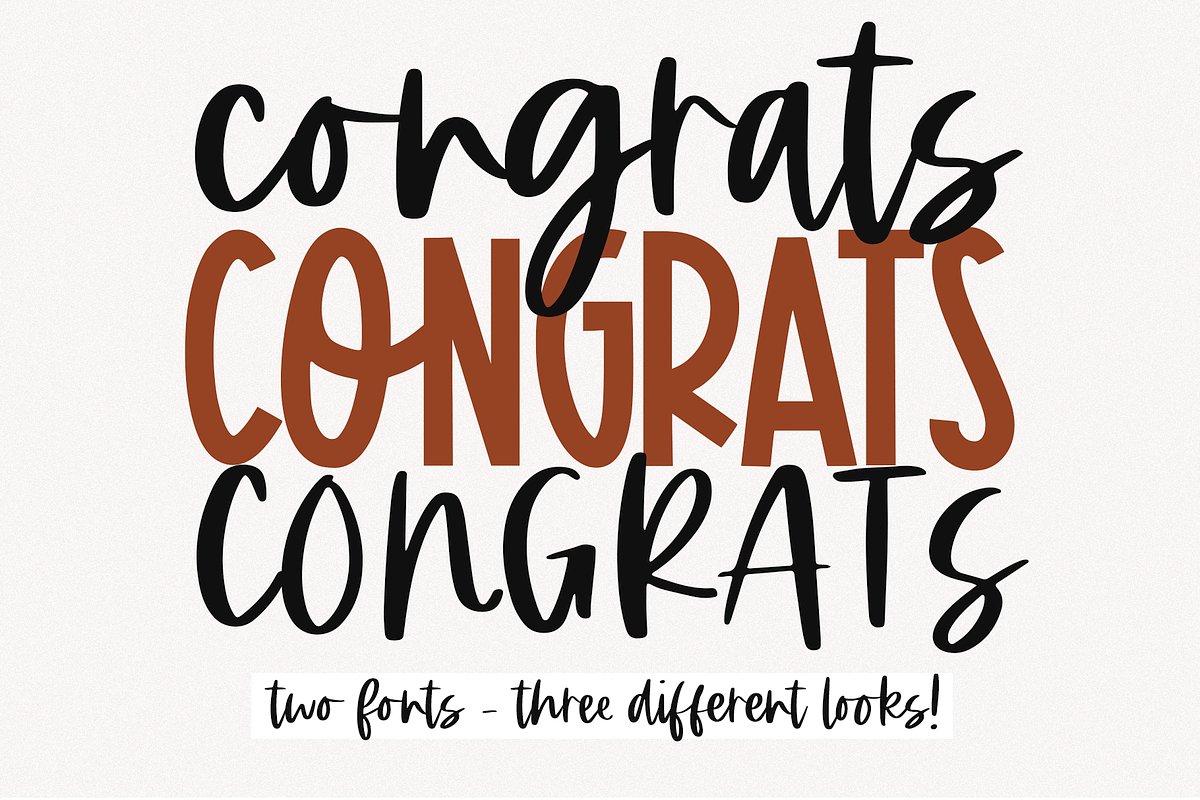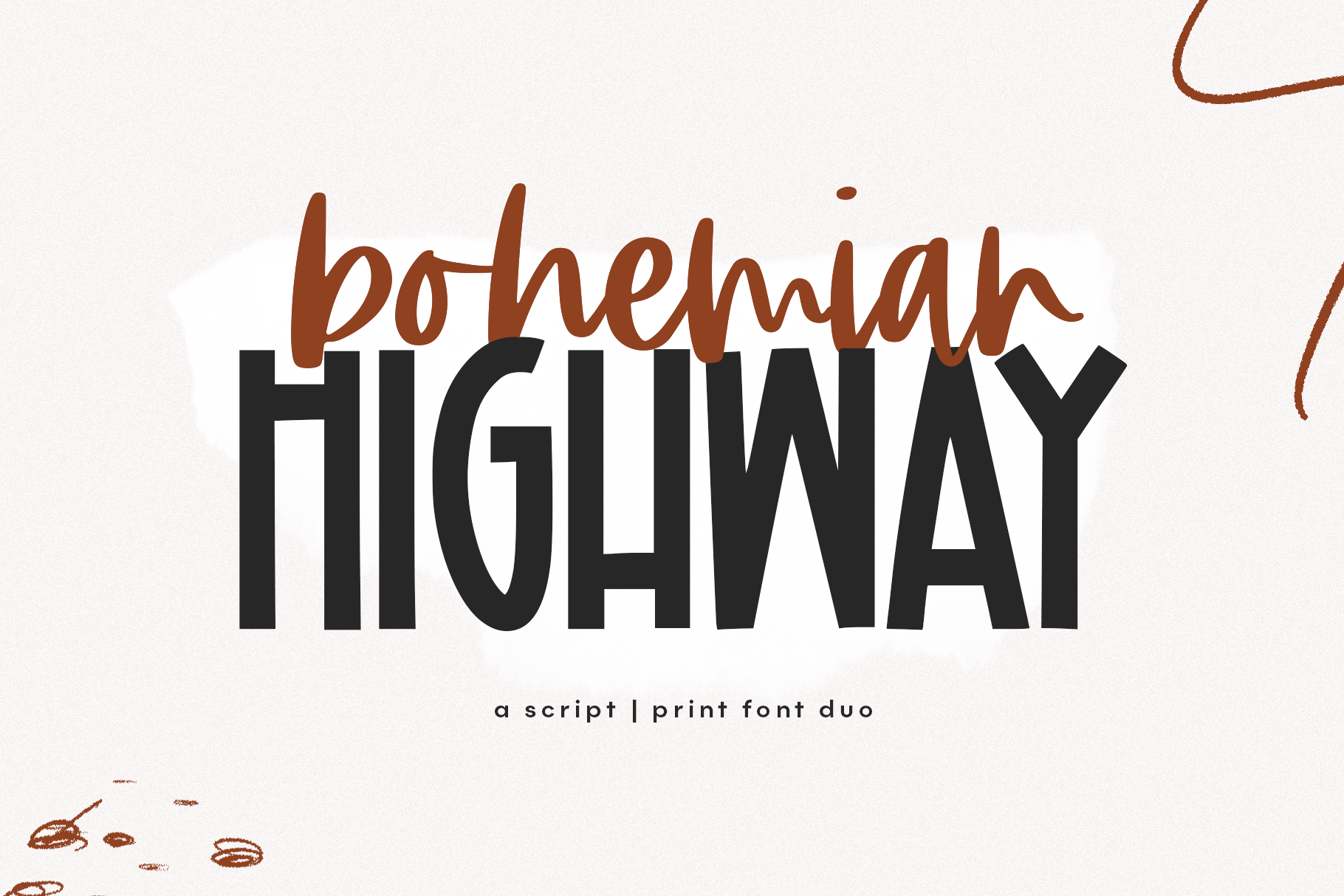
Bohemian Highway | Script Font Duo
Bohemian Highway is a handwritten font pair.
- Highway: a solid & bold, quirky print font. [TTF & OTF]
- Bohemian: a fun script font. [TTF & OTF]
This duo is perfect for quotes, headings, blogs, logos, brandings, invitations and more!
Accent characters are included.